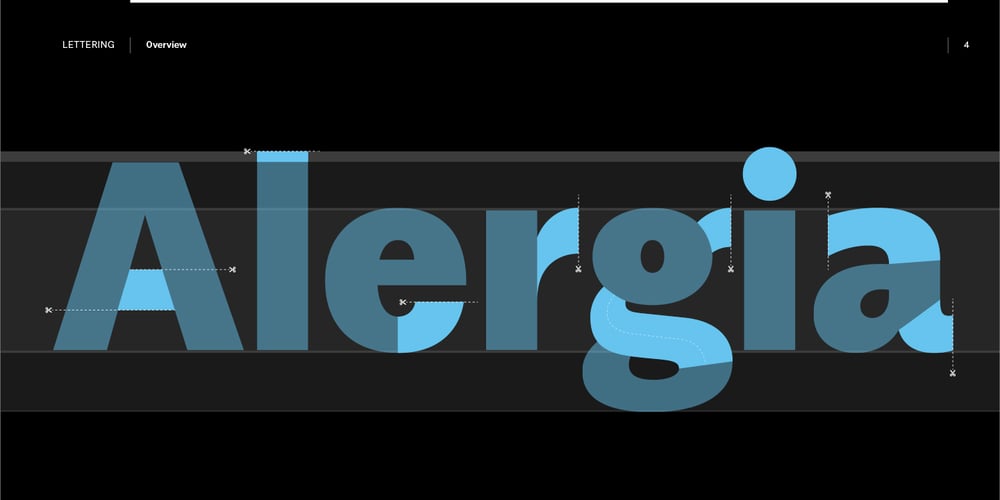
Alergia Grotesk Font Family was designed by Mateusz Machalski and published by Machalski. Alergia Grotesk contains 60 styles and family package options. Alergia Grotesk was made as a hybrid between a classical geometric grotesque and a linear antiqua. This typeface is characterised by a lot of details, which gives it a strong character. Unpredictable cuts in a letters “a” and “s”, or a double “g” in combination with a delicate contrast, makes Alergia Grotesk a good choice for many purposes from headlines to short flowing texts. A big range of width varieties allows to versatile use and can give a nice effect while mixing extreme varieties with each other in one project. The family consists of 10 weights, 3 widths and set of italics – together 60 styles. The whole family has a comprehensive set of characters. In addition to the Latin letters, Alergia Grotesk also has a full set of characters for Vietnamese, extended Cyrillic (with Abkhasian) and Greek.